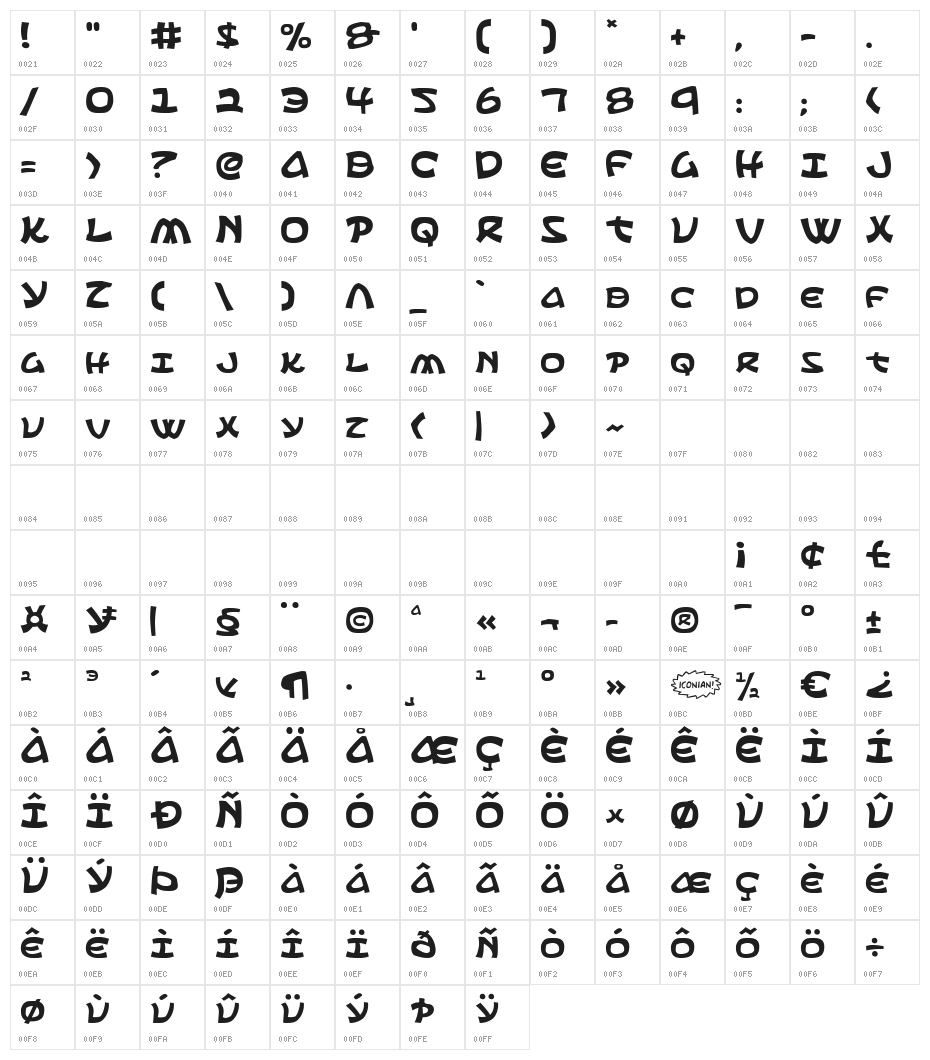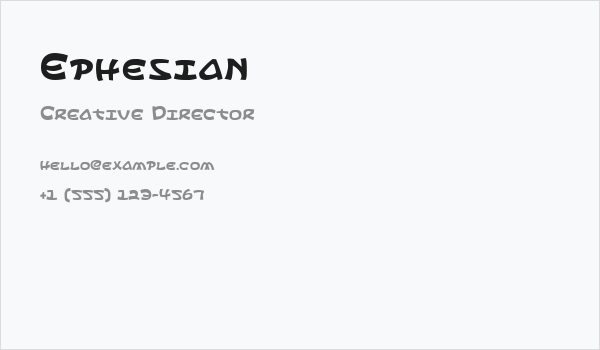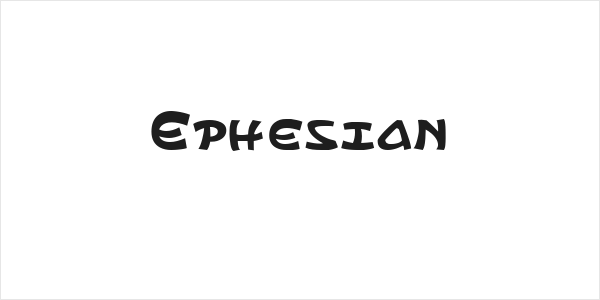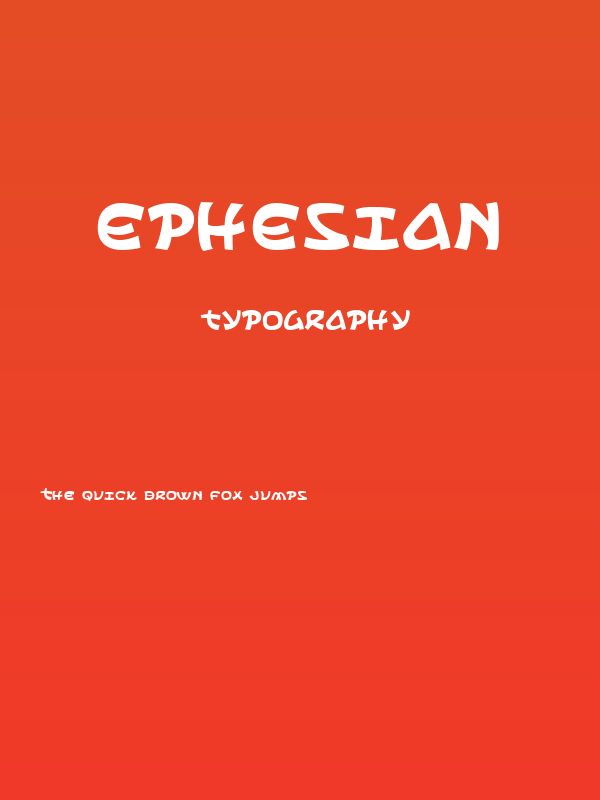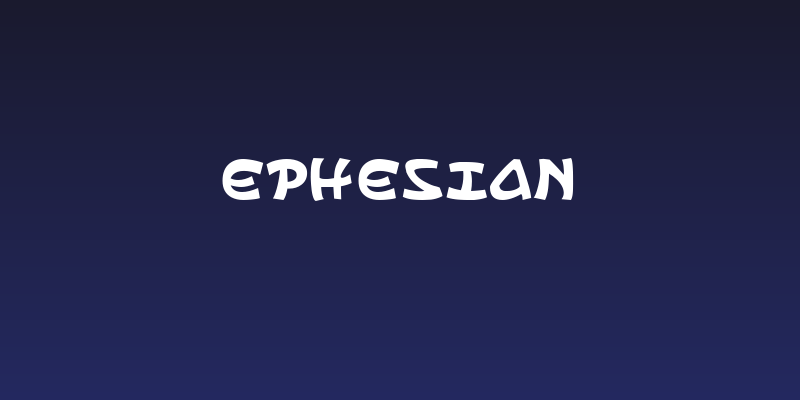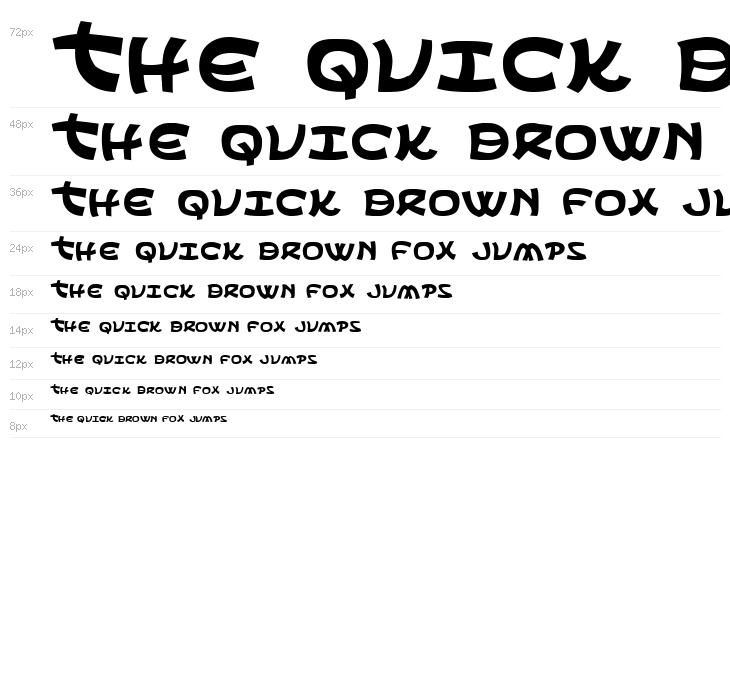
Ephesian Font
Ephesian Description
This font features a bold and playful style with a unique, slightly distorted appearance. The characters have a whimsical, cartoon-like quality, with exaggerated curves and varying stroke widths that add a sense of movement and energy. The uppercase and lowercase letters maintain a consistent style, while the numbers and special characters complement the overall design. The font's distinctiveness makes it stand out, making it suitable for creative and informal applications.
| Proposed Projects | Ideal for children's books, comic strips, playful branding, and creative posters. |